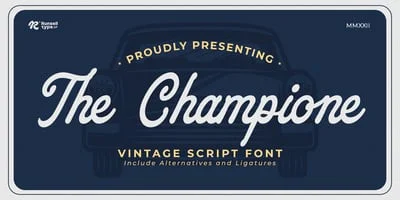
The Champione Font
The Champione Font is ideal for luxury awards ceremonies, premium sports leagues, high-end victory celebrations, elite championship tournaments, prestige brand identities, golden anniversary materials, exclusive membership clubs, and distinguished achievement recognition. This regal typeface brings championship excellence and aristocratic elegance to any design project celebrating ultimate success and distinguished accomplishments.
What makes The Champione Font exciting is its perfect fusion of sporting triumph with sophisticated luxury that captures the essence of championship glory and elite status. The majestic letterforms feature refined proportions and elegant details that create an unmistakably prestigious appearance. Each character embodies the pinnacle of achievement, making it the ultimate choice for brands and events that represent the highest levels of excellence and distinguished recognition.
The Champione Font family includes multiple weights from elegant light to commanding bold, complete with uppercase and lowercase letters, numbers, punctuation marks, and special characters. Many versions feature additional ornamental elements, trophy-inspired details, and decorative flourishes that enhance the championship aesthetic and provide creative flexibility for prestige applications.
Whether you're developing elite sporting events or creating luxury achievement campaigns, The Champione Font offers unparalleled prestige and authority. This distinguished typography choice transforms ordinary text into declarations of excellence that resonate with audiences who appreciate the finest achievements in life. The font's exceptional refinement ensures perfect performance across prestigious applications while maintaining its distinctive championship character that makes every design project feel like a golden moment of triumph and eternal glory.